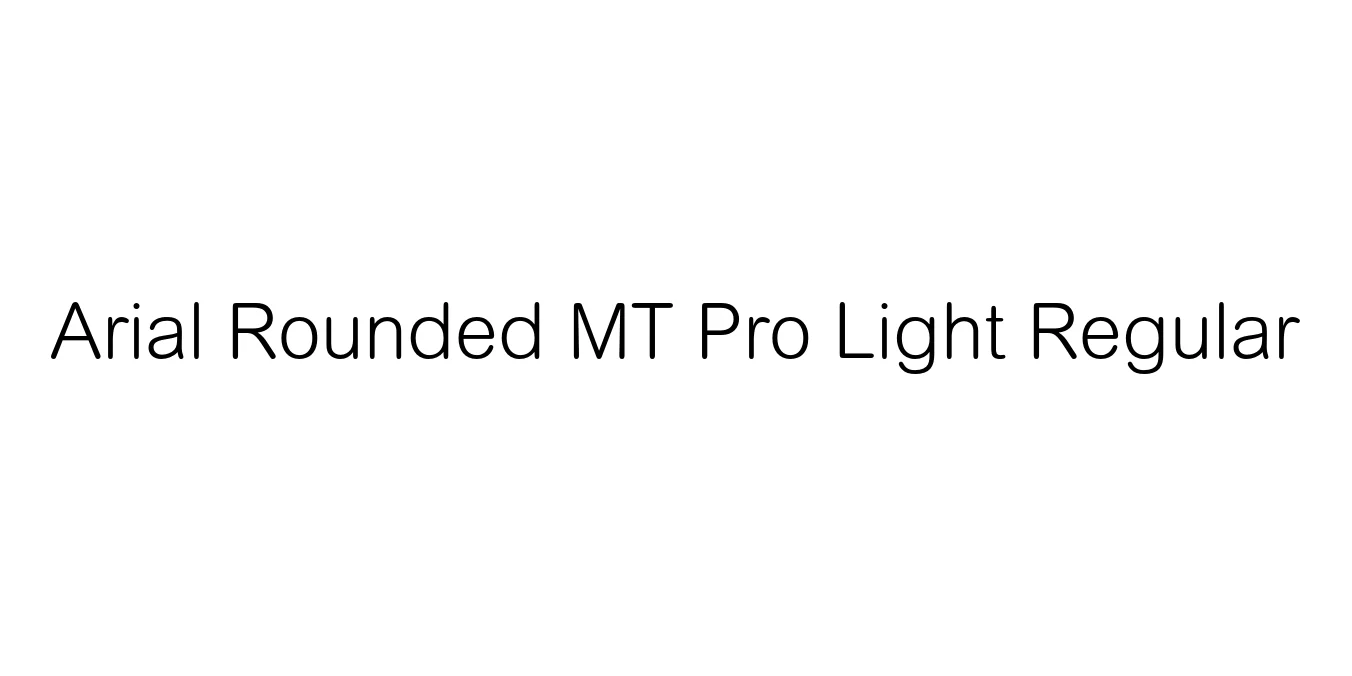
Arial Rounded MT Pro Light Regular
Designed by Robin Nicholas
| Designer | Robin Nicholas |
Arial Rounded MT Pro Light Regular is a softer, friendlier variation of the ubiquitous Arial typeface. Originally designed for Monotype by Robin Nicholas, this font family was created to provide a version of Arial with rounded stroke endings, giving it a more approachable and less clinical appearance than the standard neo-grotesque versions. The 'MT' stands for Monotype, the foundry responsible for its development and wide distribution as part of various software packages.
This specific Light weight offers a refined elegance that balances the geometric structure of Arial with a delicate, airy feel. It is frequently chosen for projects that require high clarity without the visual harshness of sharp corners. Over the years, it has become a staple in modern UI/UX design and corporate communications where a touch of warmth is needed while maintaining professional standards of legibility across both digital and print mediums.
Arial Rounded MT Pro Light Regular Best Uses
Ideal for clean, modern interface headers and user-friendly navigation menus.
Perfect for lifestyle brands and tech startups aiming for an approachable yet professional look.
Great for high-end brochures, flyers, and creative invitations where a soft touch is desired.
Excellent legibility on high-resolution screens for body text and interactive elements.